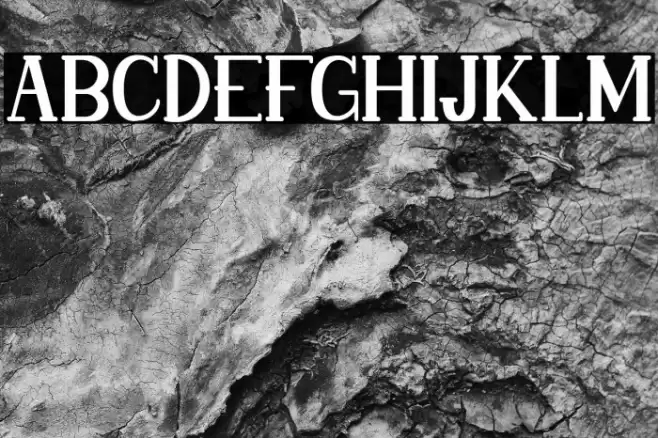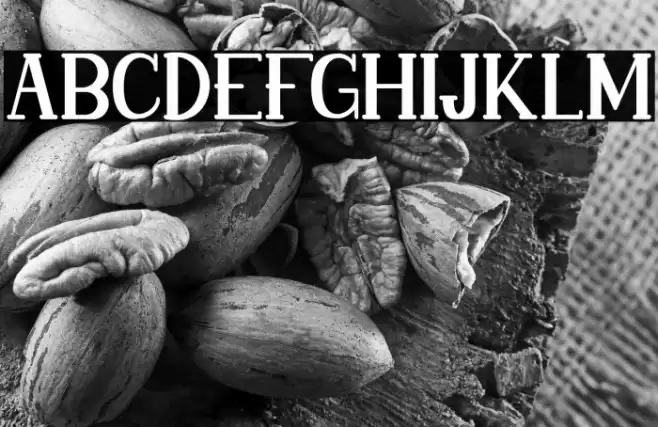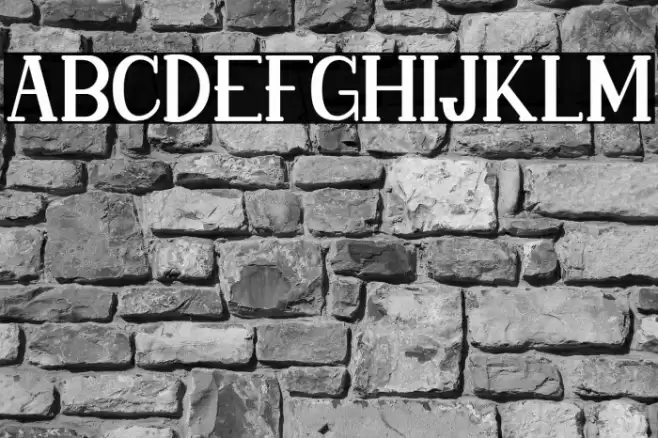
LokillsFREE Font
LokillsFREE Description
This font features a classic serif style with a modern twist. The uppercase letters exhibit strong, bold lines with distinct serifs that add a touch of elegance and sophistication. The lowercase letters maintain a consistent style, with some unique characteristics such as the curved tail on the 'g' and the distinctive shape of the 'a'. The numerals are clear and easily readable, making them suitable for various applications. The special characters are well-integrated, maintaining the overall aesthetic of the font. This font is versatile, offering a blend of traditional and contemporary elements.
A modern serif font with bold lines and elegant serifs from Uncategorized fonts.